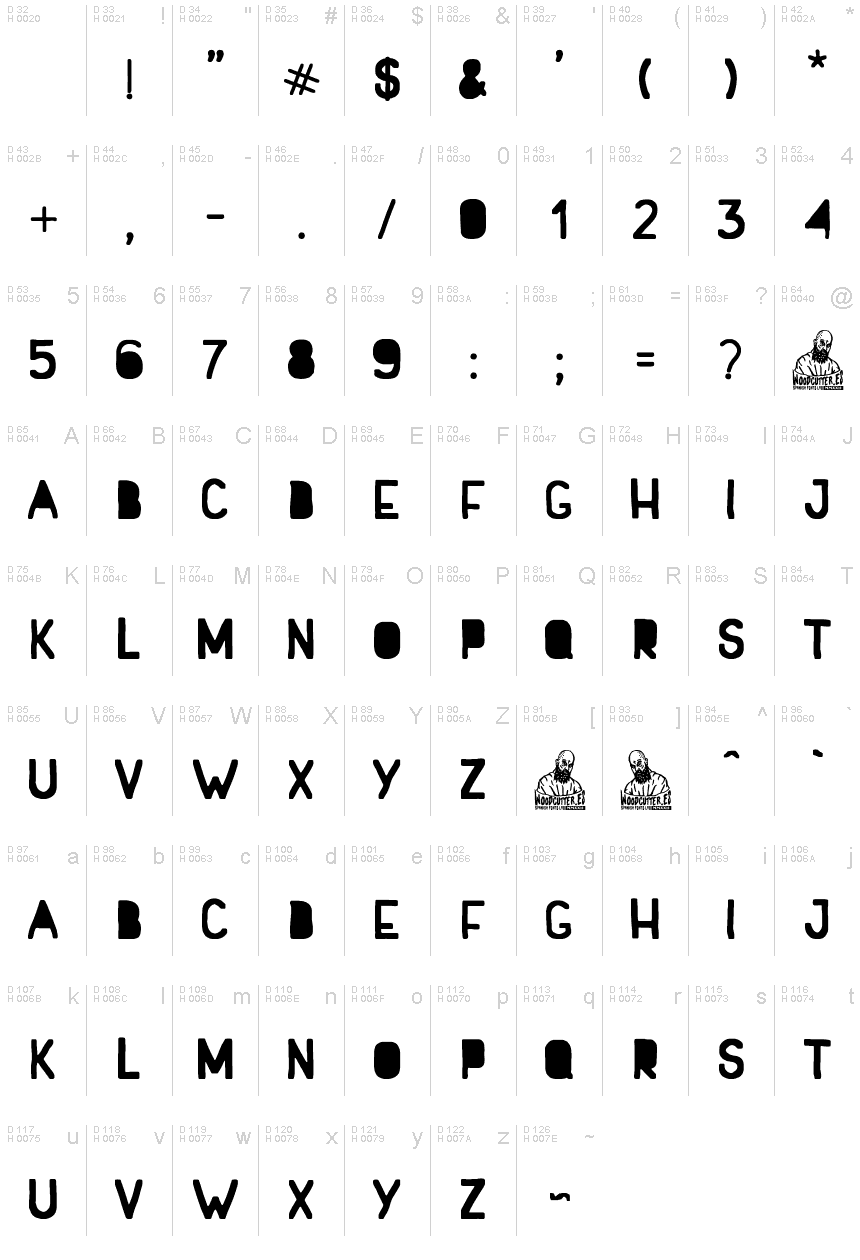
Cuatro Colores
Cuatro Colores, designed by Woodcutter, is a display font that demands attention. With its bold, vibrant letters and unique design, this typeface is perfect for projects that require a touch of creativity and personality. Its versatility allows it to be suitable for a wide range of projects from logos to posters and even packaging design. Whether you're looking to add some flair to your branding or make a statement with your headlines, Cuatro Colores' semi-bold font style will make sure your message comes across loud and clear. Its narrow width also makes it ideal for use in smaller spaces such as social media graphics or website banners. Make your designs pop with Cuatro Colores!